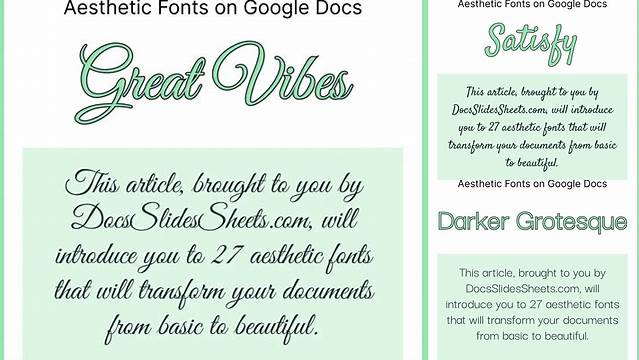
Google Docs Aesthetic Fonts: Your Ultimate Guide
Hey guys! Ever looked at your Google Docs and thought, "Man, this could use a little pizzazz?" You're not alone! We've all been there, staring at the default fonts, dreaming of something a little more… aesthetic. Well, dream no more! This guide is your one-stop shop for everything you need to know about getting those sweet, sweet aesthetic fonts in Google Docs. We'll dive into the nitty-gritty, from the basics to some sneaky tricks, so you can transform your documents from drab to fab. Get ready to level up your Google Docs game and make your documents pop! Let's get started, shall we?
1. Diving into the Google Docs Font Library
Alright, first things first, let's talk about the built-in font library. It's your starting point, your foundation. Google Docs comes pre-loaded with a decent selection of fonts, but let's be honest, it's not exactly overflowing with aesthetic choices. However, within this library lies a hidden gem: the ability to add more fonts! This is where the magic really begins. To access this library, simply open your Google Doc, select the text you want to jazz up, and click on the font dropdown menu (it usually shows the current font like Arial or Times New Roman). Then, scroll to the top of the font list and click on "More fonts." This will open a new window, presenting you with a vast array of fonts – a treasure trove of possibilities! You can browse by category, filter by specific font properties (like serif or sans-serif), and even search for specific fonts if you have something in mind. This is the core of how you unlock aesthetic fonts for Google Docs. Consider it your font-finding headquarters. Take your time to explore, because the right font can completely change the vibe of your document. Finding the right font can be as important as the content. Selecting the right font can help grab your audience's attention right away. You should also consider the readability of each font. If the text is difficult to read, then your document will fail in its main purpose, which is to share information. Therefore, don't just jump into the first font you find; find one that matches the theme and your audience.
2. Installing Custom Fonts: Your Aesthetic Toolkit
3. Font Pairing for Maximum Aesthetic Impact
Alright, you've got your fonts, but now what? Choosing the right fonts is only half the battle. Now, let's talk about font pairing. The art of combining different fonts to create a visually appealing and harmonious design. Good font pairings enhance readability and create a cohesive look. When it comes to aesthetic fonts on Google Docs, pairing fonts is like creating a well-balanced outfit. You want fonts that complement each other without clashing. So, how do you do it? Start by considering the mood you want to convey. Are you aiming for a professional, elegant feel? Or perhaps something more playful and informal? Once you've established your desired vibe, you can begin to experiment with different font combinations. There are a few different approaches to font pairing: contrasting fonts, similar fonts, and neutral fonts. Contrasting fonts have two fonts that are very different. You'll want to use them sparingly, such as in headers and subtitles. Similar fonts share some common traits, like the same font family. Neutral fonts are ones that work with almost any other font. You'll want to choose a neutral font as your body font, for easy reading. Using Google Fonts and other font websites will help provide suggestions for font pairings. This will allow you to explore different combinations and test them out in your documents. It's often helpful to think of one font as the "headline" font and the other as the "body text" font. A good rule of thumb is to avoid using too many different fonts in a single document. Stick to two or three fonts at most to maintain visual consistency. This is especially true for longer documents. Play around with different combinations, and see what works best. Try different weights, sizes, and styles of the same font to add visual interest. Font pairing is an art, so don't be afraid to experiment and find what resonates with your aesthetic goals.
4. Fonts for Headlines vs. Body Text: A Practical Guide
Let's get practical, shall we? You've got your fonts, you know how to pair them, but how do you actually apply them to your document? One of the most important aspects of aesthetic fonts on Google Docs is understanding the different roles fonts play: headlines and body text. The headline font, is the star of the show. This is the font you'll use for your titles, headings, and subheadings. It should be eye-catching, attention-grabbing, and set the tone for your document. It's the first thing your readers will see, so choose wisely! On the other hand, the body text font is all about readability and clarity. This is the font you'll use for the main content of your document – the paragraphs, sentences, and paragraphs that form the core of your message. Your body text font should be easy on the eyes and inviting. When selecting a headline font, consider fonts with strong personalities. You can use a script font, a bold sans-serif font, or something with a unique design. The key is to make it stand out. For body text, you'll want to choose a font that is legible at smaller sizes. Many serif and sans-serif fonts are ideal for body text. Once you've chosen your fonts, apply them accordingly. Use the headline font for your headings and titles and the body text font for your main content. Don't be afraid to experiment with different sizes and weights to create a visual hierarchy. The right use of headline and body text fonts will elevate the aesthetic of your document.
5. Leveraging Font Styles: Bold, Italic, and Underline
Alright, let's talk about some spice! Once you've got your fonts sorted, it's time to add some extra visual interest with font styles. Bold, italic, and underline are your best friends in this regard. These styles not only add aesthetic appeal but also serve to organize and emphasize important information within your document. Bold is your go-to for highlighting key words, phrases, or sentences. It immediately draws the reader's attention to the most important parts of your content. Use bold sparingly for maximum impact. Italic is ideal for emphasizing specific words, phrases, or quotes. It can also be used to indicate foreign words, titles of works, or thoughts. Underline is great for headings, subheadings, or hyperlinks. It clearly indicates that the text is a link or is meant to be noticed. Use this judiciously, as overuse can make your document look cluttered. You can apply these styles in Google Docs. Simply select the text you want to format and click the corresponding buttons on the toolbar. You can also use keyboard shortcuts: Ctrl + B for bold, Ctrl + I for italic, and Ctrl + U for underline (Windows) or Cmd + B, Cmd + I, and Cmd + U (Mac). Remember, the key is to use these styles strategically. Don't go overboard. The goal is to enhance readability, not distract from your content. With a little practice, you'll be able to effectively use these tools to create aesthetically pleasing and engaging documents.
6. Color Coordination for Aesthetic Google Docs
Let's talk about color! Guys, color is an integral part of aesthetics. Choosing the right colors for your fonts, backgrounds, and other elements can dramatically enhance the visual appeal of your Google Docs. Color sets the mood. Whether you're aiming for a professional, playful, or elegant vibe, color plays a critical role. Start by establishing a color palette. Think of this as your document's color scheme. You can use tools like Adobe Color or Coolors to generate color palettes. These tools will suggest colors that work well together. Once you have your color palette, apply it to your fonts, backgrounds, and other elements in your document. Select the text you want to format, and click the text color button in the toolbar. You can choose a color from the predefined color options, or you can create a custom color by entering the hex code, RGB values, or by using the color picker. Be mindful of contrast! The text color should have enough contrast with the background color for readability. The contrast makes it easier for the reader to absorb the information. You can use a contrast checker to make sure the contrast is sufficient. Try to limit the number of colors you use. Using too many colors can make your document look messy. Stick to a few main colors and use different shades and tints to add variety. Consider the meaning of colors. Different colors evoke different emotions. Red can convey excitement or urgency, while blue can suggest calmness and trust. Choose colors that align with your message and brand identity. This will help create a cohesive and aesthetically pleasing experience for your readers. By following these guidelines, you can create documents that are both visually appealing and effective in conveying your message.
7. Spacing and Alignment: Formatting for Visual Harmony
Hey guys, let's talk about the structure of your document! Proper spacing and alignment are essential for creating visually appealing and easy-to-read Google Docs. Well-formatted documents are easier to scan. This can make your documents more engaging and ensure your reader gets the intended message. Let's start with spacing. Line spacing refers to the distance between lines of text. Google Docs offers a few line spacing options. You can choose from single, 1.15, 1.5, or double spacing. The best spacing can depend on your preference, document type, and the amount of text. Use double spacing for documents like academic papers. Line spacing can also improve the overall look and feel of your document. Next, we have paragraph spacing. This is the space between paragraphs. You can adjust paragraph spacing in the paragraph settings. Consistent paragraph spacing can provide visual breaks and make your document easier to read. Alignment refers to how text is positioned on the page. Google Docs offers four alignment options: left, center, right, and justified. Left alignment is the most common. Center alignment is ideal for headings and titles. Right alignment is less common, but it can be used for specific elements, such as the date on a letter. Justified alignment aligns text to both the left and right margins. Use consistent spacing and alignment. This will improve the readability and aesthetics of your documents. Ensure that your text isn't cramped or spread out, but is easy on the eyes. Create a visual hierarchy. Use spacing and alignment to guide the reader's eye and emphasize important information. These elements will take your Google Docs aesthetics to the next level.
8. Images and Visuals: Integrating Graphics for Impact
Alright, let's bring in the visuals! Images and other visual elements can greatly enhance the aesthetic appeal and overall impact of your Google Docs. Adding visuals can break up large blocks of text. Visuals can also make your documents more engaging and memorable. Adding visuals is a great way to show information. You can use charts, diagrams, screenshots, and more to explain complex information. Start by selecting high-quality images. The quality of your images can dramatically impact the look of your document. Make sure your images are clear, crisp, and relevant to your content. There are a few different ways to add images to Google Docs. You can upload images from your computer, insert images from the web, or even search for images directly within Google Docs. After you've inserted your images, you can adjust their size, position, and alignment. You can also add captions to your images. The captions will provide context and further engage your audience. Also consider using charts, graphs, and diagrams. These visuals are great for presenting data and other complex information. Google Docs allows you to create charts and graphs. You can also create diagrams using drawing tools, or embed them from other sources. When adding visuals, make sure they align with your overall aesthetic. Ensure your images and other visuals complement your fonts, colors, and layout. Images and visuals can make your Google Docs look professional, engaging, and unique.
9. Creating a Consistent Brand Aesthetic in Google Docs
Let's talk about branding. Creating a consistent brand aesthetic in Google Docs is crucial if you want your documents to reflect your brand's identity and values. Whether it's your personal brand or a company, the look and feel of your documents can play a huge role in how people perceive you. Start by defining your brand's visual identity. Your visual identity includes your logo, color palette, and font. Make sure the fonts and colors reflect your brand's style. Determine your brand's voice and tone. It's the personality and character of your brand. Does your brand have a playful, serious, or elegant tone? This will help dictate the type of language and style you use. Use the same fonts across all of your documents. This creates consistency and helps build brand recognition. Make sure you use the same color palette throughout your documents. This includes the colors for your fonts, backgrounds, and other elements. Your brand should maintain the tone in the text. This will help readers associate it with your brand. Develop templates for frequently used documents. This will help make sure you are consistent. You can create templates for your reports, presentations, and other documents. By incorporating these elements, you can create documents that are both visually appealing and aligned with your brand identity.
10. Advanced Techniques: Going Beyond the Basics
Okay, guys, let's level up! If you've mastered the basics of aesthetic fonts on Google Docs, there are some advanced techniques that can really elevate your game. One of the best ways to customize your documents is to use add-ons. These add-ons extend the functionality of Google Docs. You can use add-ons to add custom fonts, create unique designs, and integrate other tools. Another advanced technique is using custom headers and footers. These are the top and bottom sections of your document, and they are usually used for the page number, title, and logo. Using custom headers and footers allows you to add a unique aesthetic touch to your documents. Consider using tables and columns to organize your content. Tables are great for displaying data in an organized manner. Columns help to make your text easier to read, especially in longer documents. Another great option is to experiment with different backgrounds and borders. You can add a background color or an image to your documents to make them visually appealing. You can use borders around your text to create a more defined look. Think about learning the keyboard shortcuts. Using keyboard shortcuts can save you a ton of time. By mastering these advanced techniques, you can create Google Docs that are truly unique and reflect your aesthetic style.
11. Troubleshooting Font Issues: Common Problems and Solutions
Alright, let's talk about some real-world situations, yeah? Sometimes, things don't go as planned. Let's look at the troubleshooting of Google Docs. One of the most common issues is font compatibility. Not all fonts are created equal. Some fonts may not render correctly in Google Docs. Make sure your fonts are in a compatible format, such as .ttf or .otf. Make sure you've installed the fonts correctly. Double-check that you've followed all the steps for installing your fonts, and that they're visible in your font menu. Make sure the font is licensed for commercial use. Some fonts are only licensed for personal use, so it's important to check the license before you use them. Sometimes, your document looks fine, and other times, you see unexpected results. Try to refresh the page and see if that fixes the issue. If the font still isn't displaying correctly, try clearing your browser's cache and cookies. This can sometimes resolve display issues. Make sure you have the latest version of your web browser. Outdated browsers may not be compatible with Google Docs. You may want to contact the font's designer. They can provide troubleshooting and solutions. By being aware of these common problems and solutions, you can handle any font issues that come your way.
12. Aesthetic Fonts for Different Document Types
Let's be real, guys, the fonts you choose should be adapted to the type of document you're working on. The ideal font for a report is different from a social media graphic. For reports and academic papers, the best fonts are legible and professional. This includes fonts like Times New Roman, Arial, and Calibri. These fonts are easy to read and have a classic look. For presentations, you'll want something that's readable from a distance. Fonts that are bold, clear, and easy to read. This includes fonts like Montserrat, Open Sans, and Lato. For invitations and announcements, you can get a bit more creative. You can use a script font or a more decorative font. Be careful to choose fonts that are easy to read, or risk losing the information to the audience. When it comes to social media graphics, the fonts have to be eye-catching and on-brand. This includes fonts like Bebas Neue and Oswald. These fonts are great for creating a statement. No matter what document you're working on, make sure the fonts align with your brand's personality and goals. Always choose the fonts that best suit the type of document. Consider your audience's preferences, and always make readability a priority.
13. Google Fonts: A Deep Dive into the Free Library
As we already mentioned, Google Fonts is your best friend. This is the free font library provided by Google. The library has hundreds of fonts. You can access the library from your Google Docs font menu, by clicking "More Fonts". Google Fonts has a lot of benefits. It's free! You can use these fonts for personal and commercial purposes. The fonts are open source. This means they are available for anyone to use. They are optimized for the web. They're designed to look good on the screen. The fonts are well-organized. You can browse fonts by category, style, and language. Google Fonts includes a wide range of font families. You can find everything from serif to sans-serif fonts. You can download the fonts from Google Fonts directly. You can use the fonts in other design programs. You can pair Google Fonts with other fonts. Google Fonts provides a useful pairing tool to recommend the best fonts. With the variety of the fonts, you're sure to find one that fits your aesthetic needs and make your documents stand out.
14. DaFont and Other Font Resources: Exploring Alternatives
While Google Fonts is amazing, there are tons of other resources out there for your font needs! Let's explore some awesome alternatives. DaFont is a popular website for finding free fonts. It's a vast collection of fonts, including unique and creative options. It's easy to browse. You can find fonts by category, such as serif, sans-serif, and script fonts. DaFont is an excellent place to find aesthetic fonts. You can find unique fonts to set your documents apart. Another great resource is Font Squirrel. This website offers a collection of free, high-quality fonts. The fonts are licensed for commercial use. Font Squirrel also offers a font identifier tool. You can upload an image of a font to find its name. When using other resources, be mindful of the licensing. Always check the license to ensure that you can use the font for your intended purpose. Also, make sure that the fonts are compatible with Google Docs. If you're looking for aesthetics, these resources are a great place to start! Experiment with different fonts to find the perfect fit for your documents.
15. The Role of Typography in Visual Communication
Let's talk about the why behind all this. Typography, the art and technique of arranging type, plays a super important role in visual communication. It goes beyond just making your text readable; it helps shape the reader's experience. Typography helps to convey a message. The font you choose, its size, color, and other features can all affect the message. Typography helps you create a visual hierarchy. This refers to the arrangement of elements in a way that helps guide the reader's eye. The different sizes and weights of the text can help highlight information. Typography sets the mood. It can make a document feel professional, playful, or elegant. Typography is essential for branding. When you use consistent fonts and styles, your brand becomes more recognizable. It builds brand awareness and helps your audience connect with your business. Using great typography can ensure your message is communicated in a clear and effective way.
16. Creating Custom Fonts for Google Docs (If Possible)
Okay, so you're feeling extra creative? While Google Docs doesn't let you create fonts from scratch, there are a few creative ways to bring your unique vision to life! If you are a designer, you could design your own font in a font editor, such as FontForge or Glyphs. This requires a bit of skill and a learning curve. Once you're done, you can export it as a .ttf or .otf file. Since you can't upload a font file, you will want to use it in an image editor. Design your text in an image editor, export as an image, and import the image into Google Docs. Another method is to use a handwriting generator. Several websites can transform your handwriting into a font. This is a neat and unique way to add a personal touch to your documents. Although Google Docs doesn't allow you to create fonts directly, these methods are some workarounds you can use. This will enable you to add your unique aesthetic to Google Docs.
17. Fonts for Different Languages and Character Sets
Let's talk about global appeal, yeah? When working on Google Docs, it's important to keep language and character sets in mind. Make sure you use fonts that support the languages and character sets you need. If you're using characters from a non-Latin script, make sure your font supports these characters. For example, if you're writing in Korean, you'll need a font that supports Hangul characters. Many Google Fonts include support for multiple languages and character sets. If you're working with a font from another source, check to see if it supports the languages you need. If the font doesn't have the characters, the characters will be replaced with question marks. Many Google Fonts support the Latin Extended characters, which include the additional characters used in Western European languages. Some fonts will include the support for Cyrillic and Greek characters. This is perfect if you are working in Russian or Greek. By considering these factors, you can make sure your documents are legible and accessible to a global audience.
18. Font Size and Readability: Finding the Sweet Spot
Hey, let's talk about readability! Choosing the right font size is essential for ensuring your text is easy to read. Finding the sweet spot can make or break your document's success. As a general rule, body text should be around 11-12 points. This size is easy on the eyes and helps the reader focus on the content. Headings should be larger than body text. This will help create a visual hierarchy. The size of your headings depends on the format, but 18-24 points is a good range. Experiment with different font sizes, and make sure to test the document on different devices. When the text is too small, it can be difficult to read. The text size has to be large enough, so people don't have to squint. If the text is too large, it can look unprofessional. Another good tip is to choose a font that is designed for readability. Some fonts, such as Arial and Times New Roman, are easy to read. Ensure your font size is appropriate. By following these suggestions, you can ensure that your document is easy to read and visually appealing.
19. Using Google Docs Templates with Aesthetic Fonts
Alright, let's talk about templates, shall we? One of the best ways to get started is to use a Google Docs template. Templates are pre-designed documents with different layouts and fonts. This can give you a head start for your document. Google Docs provides a wide range of templates for various purposes. You can find templates for resumes, reports, and newsletters. To find these templates, go to the Google Docs homepage and click "Template gallery." From there, you can browse through the available options. Many templates include aesthetically pleasing fonts. You can simply customize the templates to fit your content and brand identity. You can also find templates from third-party websites. When choosing a template, consider the overall design and layout. Make sure the fonts and colors align with your brand's aesthetic. After choosing your template, customize it to your needs. Replace the placeholder text with your content. You can change the fonts, colors, and other elements to match your brand's style. Templates can be a great starting point for creating aesthetically pleasing documents. They can save you time and provide inspiration.
20. Legal Considerations: Font Licensing and Usage Rights
Let's talk about the legal side of things, guys. When using aesthetic fonts in Google Docs, it's important to understand font licensing and usage rights. Font licensing determines how you can use a particular font. You must familiarize yourself with the font's license before you use it. There are different types of licenses. Some fonts are free. Free fonts allow you to use them for both personal and commercial projects. Other fonts are licensed. This may require you to pay a fee. It's important to check the license agreement. If you fail to do so, it could lead to legal issues. You must respect the copyright of the font designer. You cannot sell the font or alter the font's design. If you are using a font on a website, you may need a web font license. Fonts must be used responsibly. You can use the license agreement to guide your work. Familiarizing yourself with these legal considerations can protect you from potential legal issues.
21. Keyboard Shortcuts for Quick Font Formatting
Alright, let's get efficient! Keyboard shortcuts are your best friend. They can save you a ton of time and make the formatting process a breeze. Let's learn about some key shortcuts! Bold - Press Ctrl + B (Windows) or Cmd + B (Mac). Italic - Press Ctrl + I (Windows) or Cmd + I (Mac). Underline - Press Ctrl + U (Windows) or Cmd + U (Mac). Change font size - Use Ctrl + Shift + < (decrease) and Ctrl + Shift + > (increase) on Windows or Cmd + Shift + < and Cmd + Shift + > on Mac. Change font - Use Ctrl + Shift + F (Windows) or Cmd + Shift + F (Mac). Copy formatting - Select the formatted text, and press Ctrl + Shift + C (Windows) or Cmd + Shift + C (Mac). You can apply the formatting by pressing Ctrl + Shift + V (Windows) or Cmd + Shift + V (Mac). Remember that consistency is key. Make sure the shortcuts align with your brand's identity. By learning these shortcuts, you can greatly improve your workflow and create aesthetically pleasing Google Docs faster than ever.
22. Designing Your Own Aesthetic Templates in Google Docs
Alright, let's get creative! Once you're comfortable with the basics, you can start designing your own aesthetic templates in Google Docs. To get started, you can create a new document in Google Docs. You can then select your desired fonts, colors, and layout. Select your fonts. Choose fonts that align with your brand's identity. Use headings and subheadings. Organize the content in a way that is easy to read. Create consistent spacing and alignment. This will improve the readability and aesthetics of the document. Add images and other visual elements. This can help break up the text. Once you're finished, you can save your document as a template. To save it, go to the File menu and click "Make a copy." You can also share your template with others. If you want, you can make a template for all of your Google Docs documents. These templates can save you time and ensure that your documents have a consistent look and feel.
23. Utilizing Add-ons for Enhanced Font Functionality
Add-ons are the secret weapon! You can get a lot of extra functionality for your font needs. Add-ons extend the functionality of Google Docs. You can find them in the Google Workspace Marketplace. Once you've installed an add-on, it appears in the "Add-ons" menu. There are many types of font add-ons, from custom fonts to design tools. A font add-on can add custom fonts to your Google Docs. You can also use add-ons for design. These tools allow you to change the color scheme or the look of your document. To use these add-ons, open your document and select the "Add-ons" menu. From there, you can select the add-on you want to use. Add-ons are a great way to enhance the functionality of Google Docs. You can find new fonts, create unique designs, and integrate other tools. It's a great tool to explore, so have fun with it!
24. Fonts in Google Docs: Common Mistakes to Avoid
Let's talk about the pitfalls, yeah? When it comes to aesthetic fonts on Google Docs, there are some common mistakes you want to avoid. The first mistake is using too many fonts. When you use too many fonts, it can make your document look messy and unprofessional. Try to use a maximum of 2-3 fonts. Choosing fonts with poor readability is also a mistake. If the font is hard to read, your audience may not receive the message. Make sure your body text is easy on the eyes. Another common mistake is not choosing the right font for your document. Make sure the fonts align with your brand's identity. Not using font styles to emphasize the key information is also a mistake. Bold, italic, and underline can make important information stand out. Overusing these styles can make your document look cluttered. Pay attention to font size. Make sure your font size is appropriate for your document. To avoid these common mistakes, follow these suggestions. If you avoid the mistakes, your aesthetic fonts on Google Docs will look amazing.
25. The Future of Fonts in Google Docs: Trends and Predictions
Let's peek into the future! What does the future hold for fonts in Google Docs? One trend is the integration of AI-powered font suggestions. AI can analyze your content and recommend fonts that match your style. Another trend is the growing availability of custom fonts. Expect more platforms to make it easier to add custom fonts. We might see more dynamic fonts. These fonts will adapt to the size of your text and the device you're using. Another trend is the increased focus on accessibility. Expect more fonts to be designed with accessibility in mind. As technology evolves, so will the fonts available in Google Docs. Stay tuned for these advancements. You'll be able to create stunning and innovative documents.
26. Optimizing Fonts for Print vs. Digital Display
Let's get technical! When it comes to aesthetic fonts on Google Docs, optimizing your fonts for print versus digital display is essential. You want the document to look good either way. For print, you'll want to choose fonts with high resolution. This will prevent your text from looking blurry or pixelated. Use serif fonts. They are often easier to read when printed. Make sure your font size is large enough. The recommended font size is 11-12 points. For digital display, readability is key. Choose a sans-serif font. They are often easier to read on a screen. Make sure your text contrasts with the background. This will make your text easier to read. Remember that each medium has its own specific requirements. Optimizing for both print and digital display will allow you to reach a wider audience.
27. Case Studies: Successful Aesthetic Font Usage Examples
Time for some inspiration! Let's look at some examples of successful aesthetic font usage. Look at your favorite documents, such as marketing materials. You'll want to choose a font that aligns with the brand's personality. Notice how professional documents will use a serif font. Brochures and newsletters will use fonts that grab your attention. Make sure to note how they're using color. Make note of how the designers use the layout and overall design. Try to use these techniques in your own documents. By studying these examples, you can learn how to create visually appealing and effective documents. Use these examples as inspiration. These case studies can show you how to create documents that are both aesthetically pleasing and effective.
28. Accessibility and Font Choice: Designing for Inclusivity
Let's talk about inclusivity, guys. When choosing fonts for Google Docs, it's super important to keep accessibility in mind. You want your documents to be readable by everyone. Choose fonts that are easy to read. Sans-serif fonts are generally easier to read for people with dyslexia. Choose a font size that is large enough. Consider the colors. Use enough contrast between the text and the background. Avoid using italics or all caps. You should use a clear, concise language. This will improve the readability of your document. By following these suggestions, you can ensure that your documents are accessible to a wider audience. Accessible design is essential for creating inclusive content.
29. Maintaining Font Consistency Across Multiple Documents
Let's focus on consistency, alright? Once you've chosen your fonts, it's essential to maintain consistency across all your Google Docs documents. Consistency builds brand recognition. Always use the same fonts for your documents. You can create templates for frequently used documents. This will ensure your fonts are consistent. Use the styles feature in Google Docs. It allows you to save and apply your formatting. You can easily apply the same styles to your documents. Also, you should create a style guide. It includes the fonts, colors, and other design elements. Sharing your style guide with others can create consistent documents. By taking these steps, you can create a consistent brand image. Consistent fonts will make sure your documents are professional and visually appealing.
30. Resources and Tools for Finding Aesthetic Fonts
Alright, let's wrap things up with some helpful resources! When it comes to finding aesthetic fonts for your Google Docs, here are some great places to look: Google Fonts. We've talked about this before. It's the best place to start. DaFont. Tons of fonts! Font Squirrel. Provides a selection of free, high-quality fonts. Adobe Fonts. Another great font resource. Typewolf. A great resource for font pairing ideas. Use these resources to find the perfect fonts. Experiment with different options to find what works best. Happy font hunting! Go out there and create some amazing documents. Make your documents aesthetically pleasing.